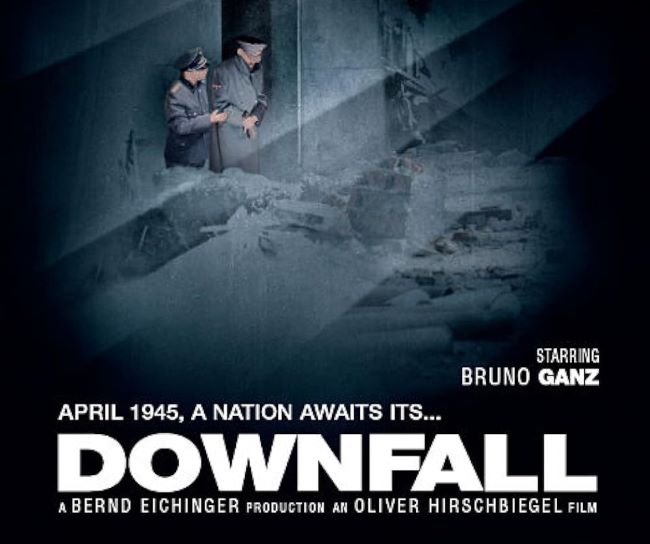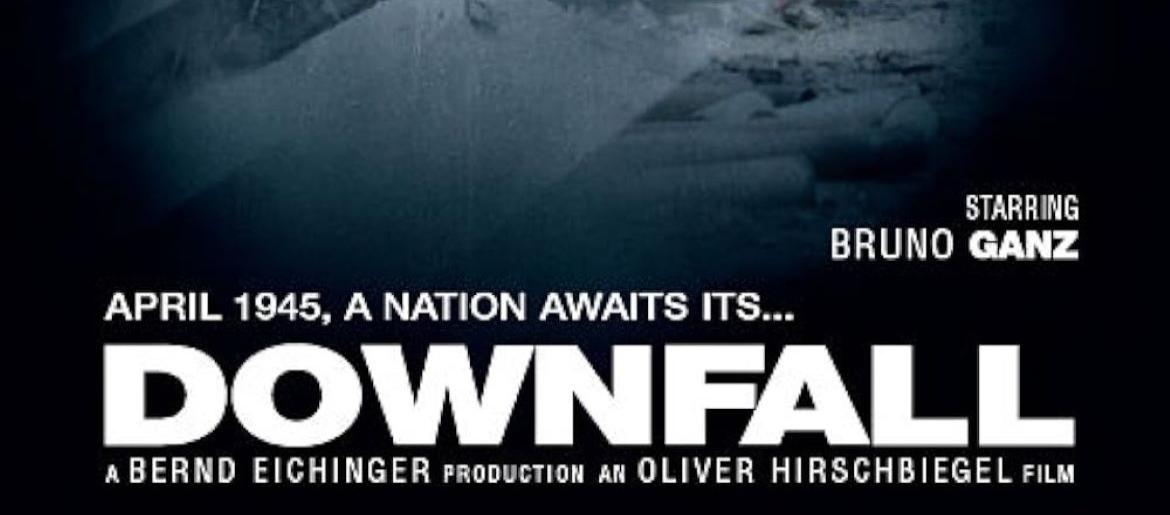
Downfall Font
The Downfall Font mirrors the stark, intense tone of the film it represents. Its rigid, authoritative letterforms reflect the cold, unflinching atmosphere of Hitler’s final days in the bunker. Bold, clean, and unadorned, the typography communicates strength, precision, and gravity—perfectly matching the film’s historical and dramatic weight. The original design closely resembles Helvetica Bold, Arial Black, or DIN, all of which emphasize clarity and command attention without unnecessary ornamentation. Free alternatives can replicate this same serious and structured aesthetic, making them ideal for historical or war-themed projects.